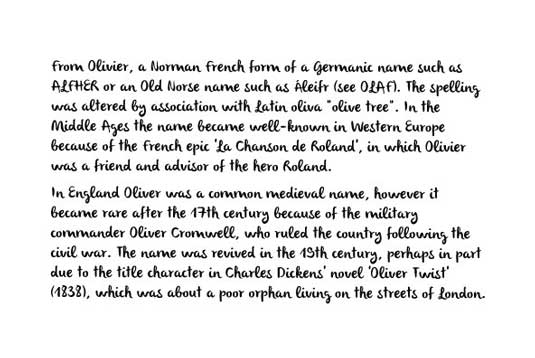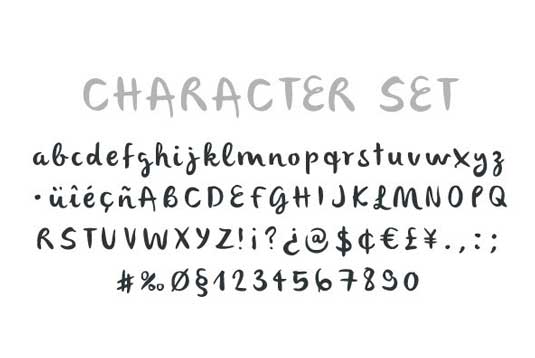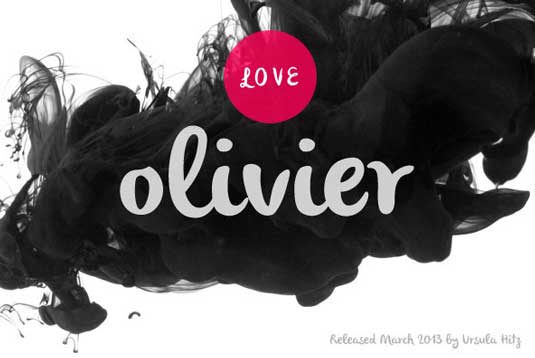
Font of the day: Olivier
Olivier by Ursula Hitz
Ursula Hitz is a London-based artist and designer, and the lady behind today's font of choice Olivier. Based on painted black ink letters, the inspiration for the design is fluidity of wine. The font is suitable for logo types, short paragraphs and headings.